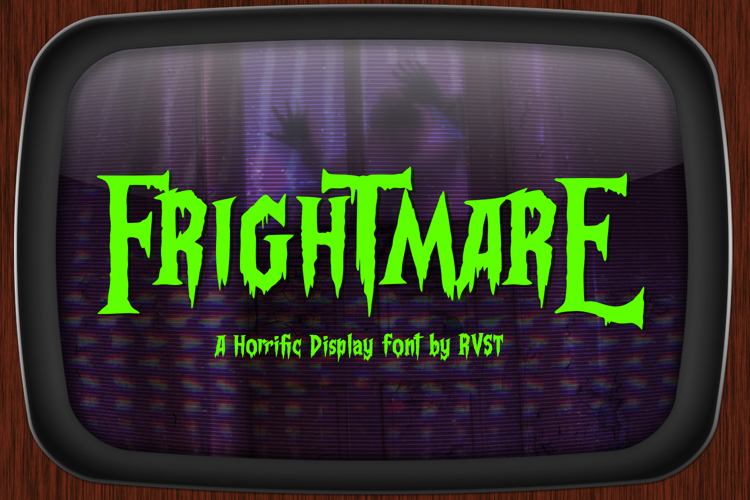
Frightmare Font
Frightmare - Display font inspired by old great horror movies all the time! Bringing you back over the decades to dive in horrific vibes!